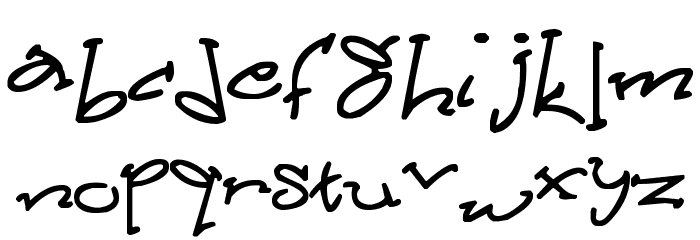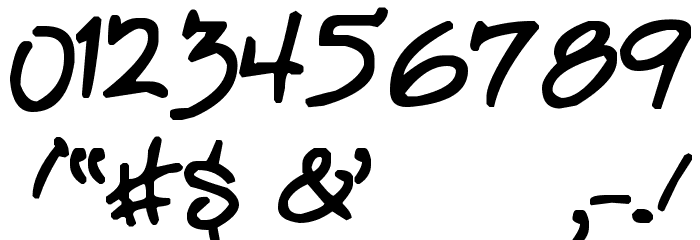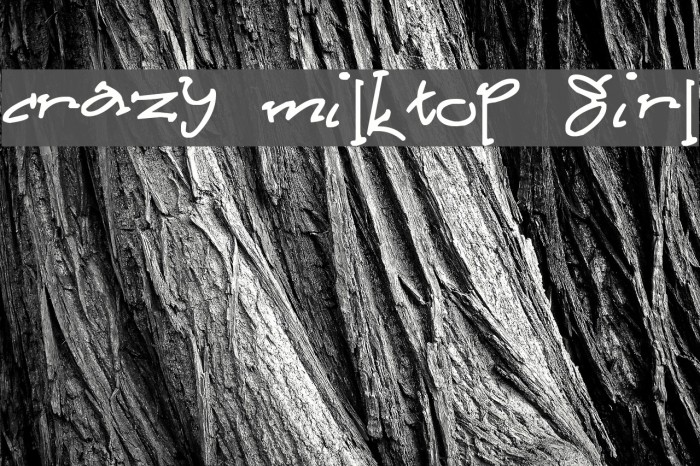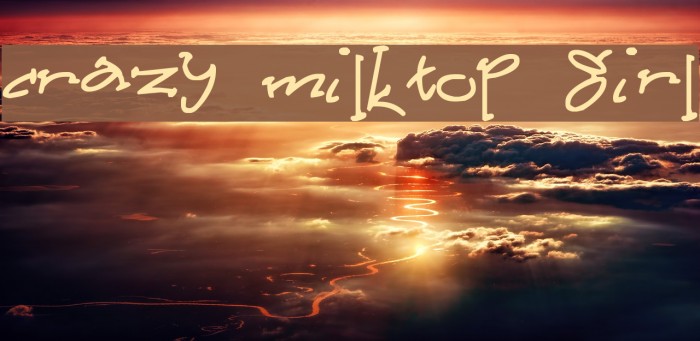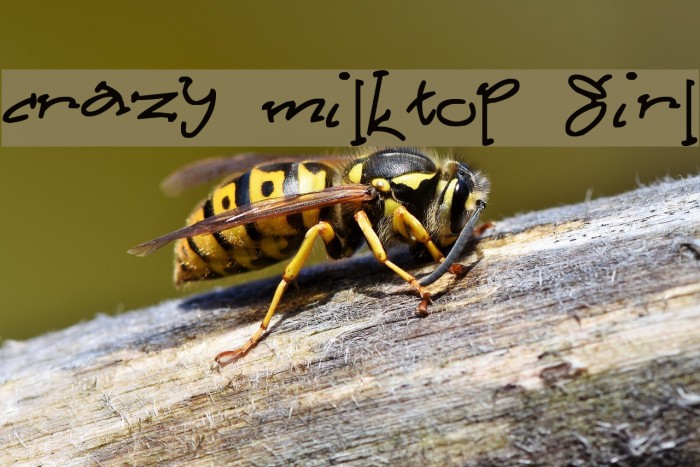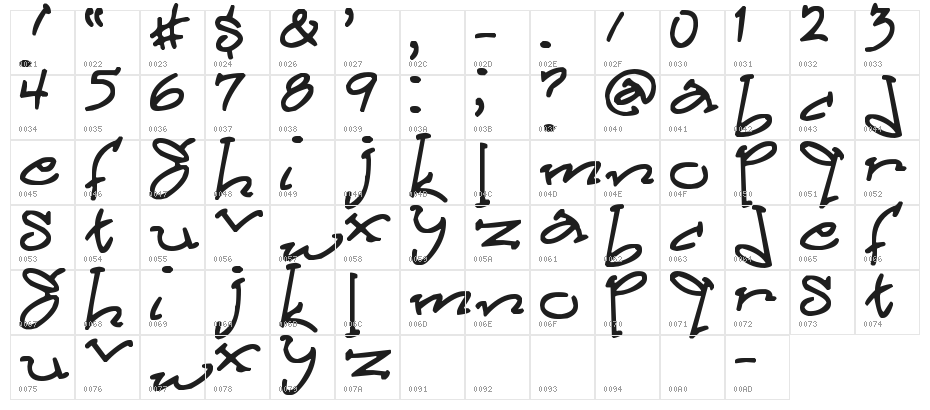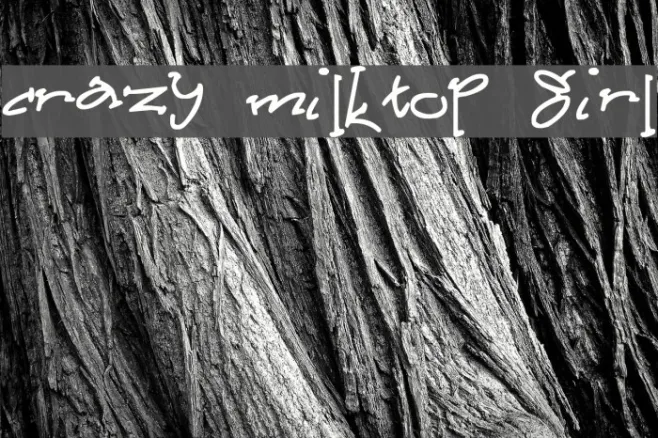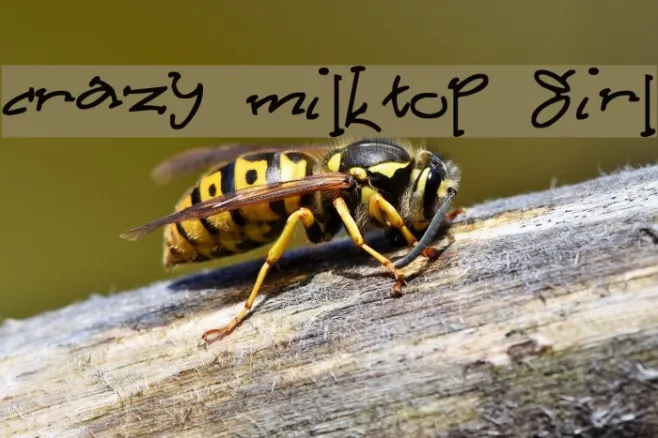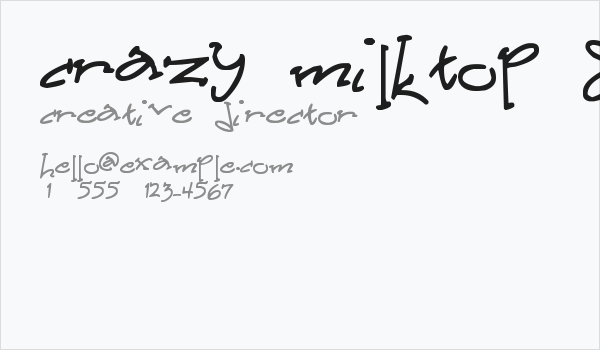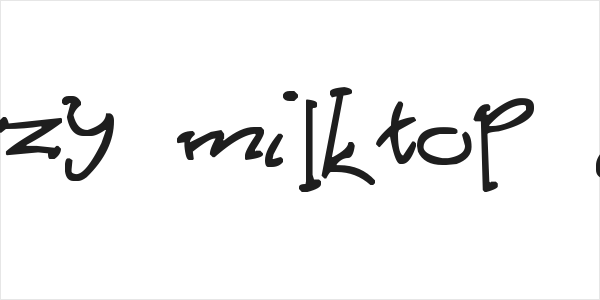
Crazy Milktop Girl Font
This font exhibits a playful and whimsical style, characterized by its handwritten appearance. The letters are fluid and dynamic, with a slight slant that adds a sense of motion and energy. The strokes vary in thickness, providing a medium contrast that enhances its lively and informal feel. The characters are well-spaced, allowing for readability while maintaining a casual aesthetic. The numerals and special characters share the same energetic style, making the font versatile for various creative applications.
A playful, handwritten font with medium contrast and dynamic strokes.
- Proposed Projects: Ideal for greeting cards, children's books, playful branding, and creative posters.
- Overall Style: Playful
- Use Case: Headlines, Creative projects, Informal text